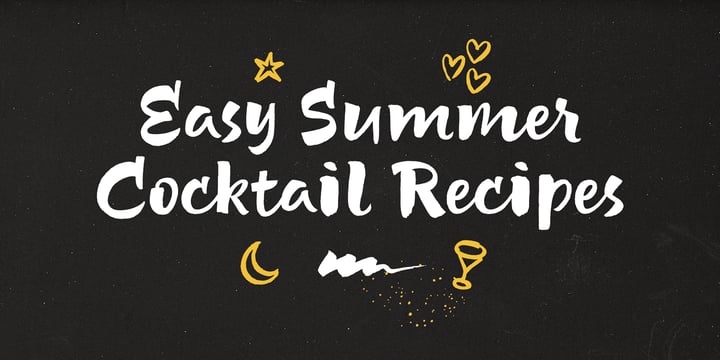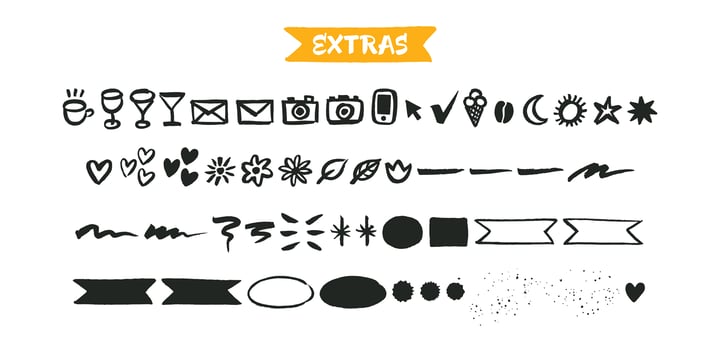
Luna Brush
Luna Brush by Ksenia Belobrova
Luna Brush Font Family was designed by Ksenia Belobrova and published by Ksenia Belobrova. Luna Brush contains 2 styles and family package options. More about this family
About Luna Brush Font Family
Luna Brush is a fresh handwritten script based on informal calligraphy. Luna Brush Script includes OpenType features – ligatures and stylistic alternates for lowercases and capital letters. Luna Brush Extras includes a set of icons and swashes that can help you to add some personal charm to your designs, so it is perfect for branding, packaging, titling, posters, greeting cards, blogs, etc.
Designers: Ksenia Belobrova
Publisher: Ksenia Belobrova
Foundry: Ksenia Belobrova
Design Owner: Ksenia Belobrova